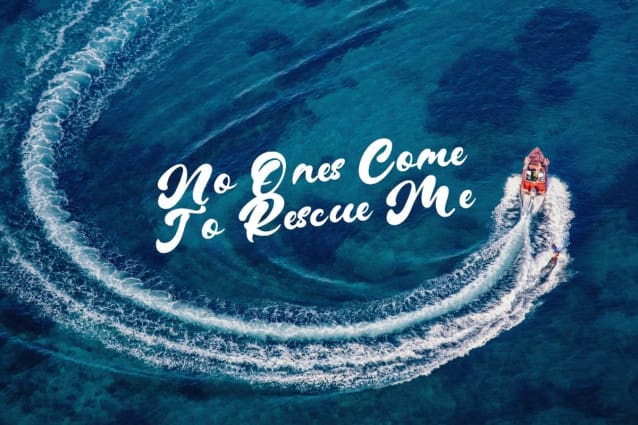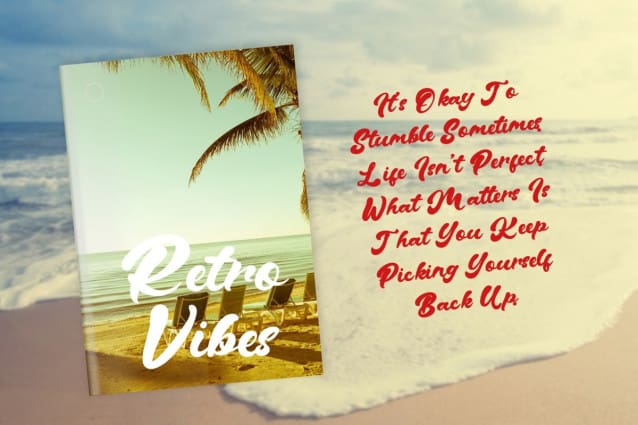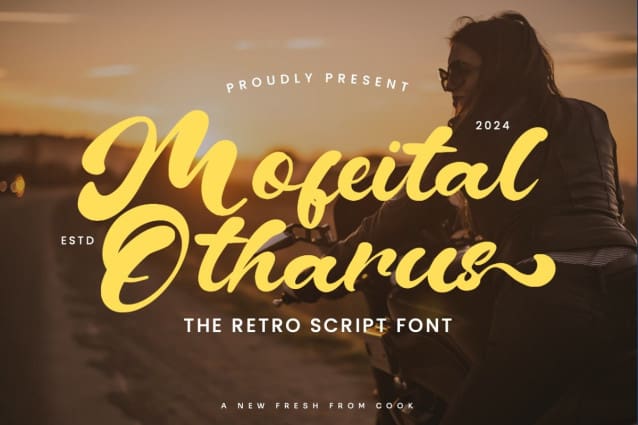
Mofeital Otharus Font
Mofeital Otharus Font is a bold, retro script font with a cool, vintage vibe. It has smooth curves and strong lines, making it perfect for eye-catching designs with a nostalgic feel.